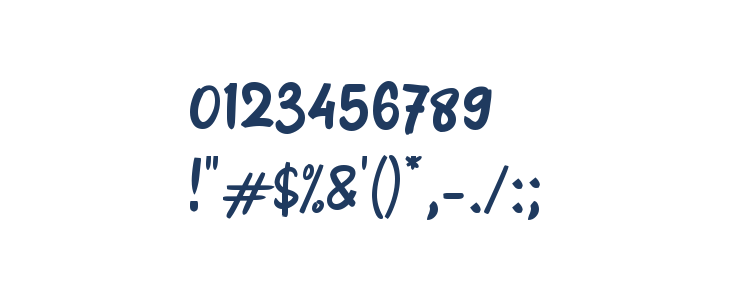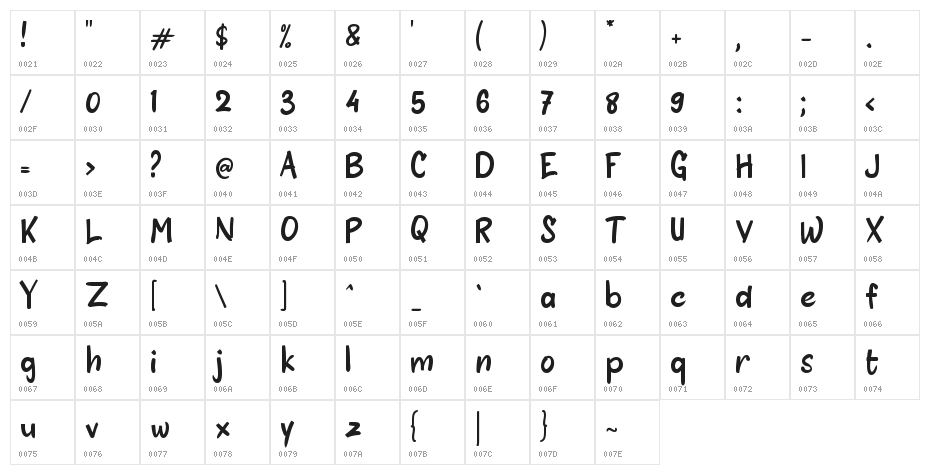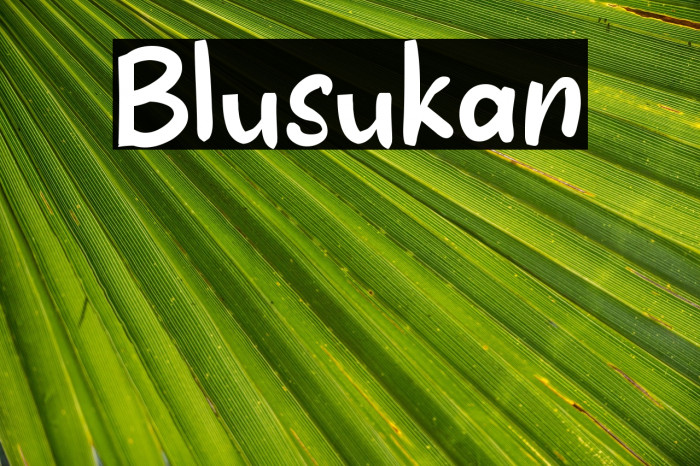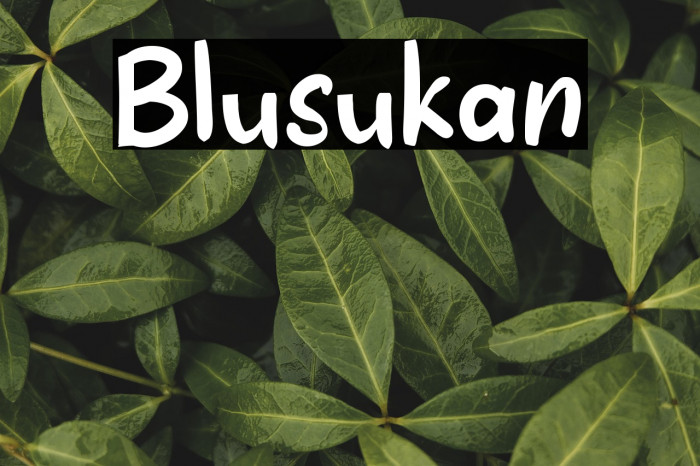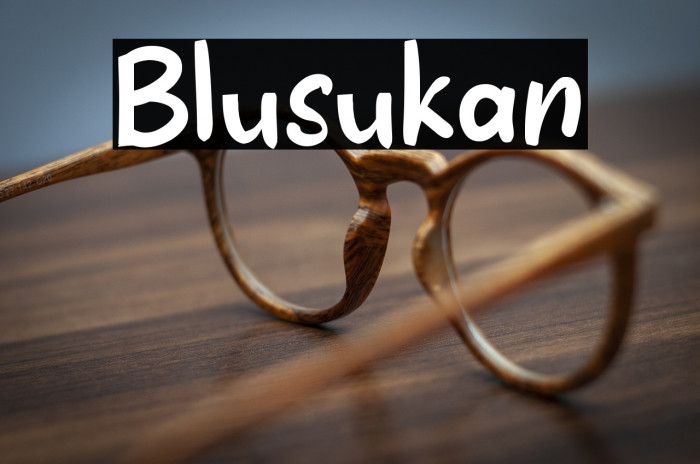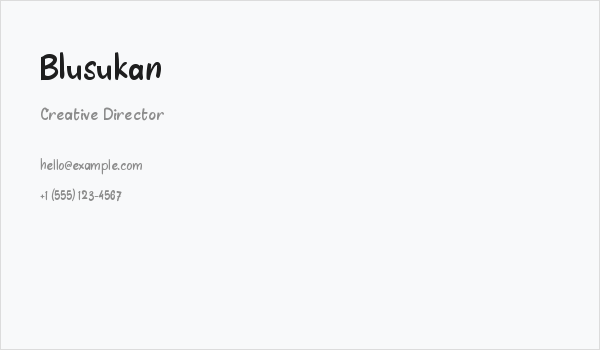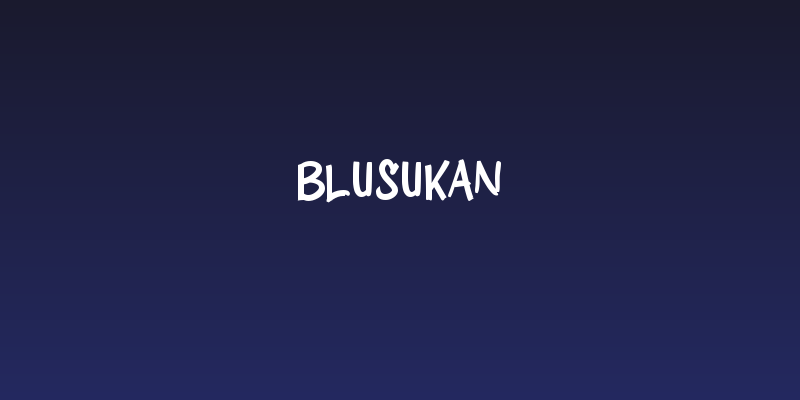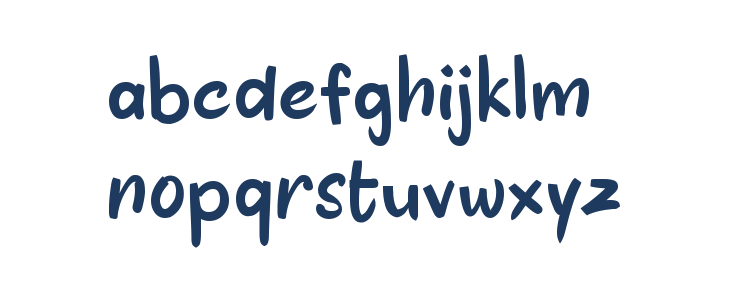
Blusukan Font
Blusukan Description
This font features a playful and informal handwritten style, characterized by its bold and slightly irregular strokes. The letters are rounded with a casual, friendly appearance, making it suitable for projects that require a personal touch. The uppercase and lowercase letters maintain a consistent style, with a slight slant that adds to the dynamic feel. Numbers and special characters are well-integrated, maintaining the overall aesthetic. The font's design is approachable and versatile, ideal for creative and informal applications.
| Use Case | Logos, Headlines, Informal Text |
| Proposed Projects | Ideal for greeting cards, children's books, playful branding, and casual invitations. |